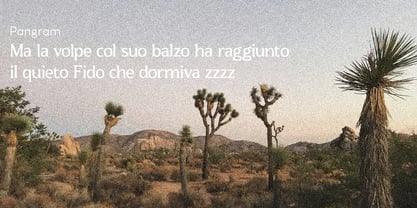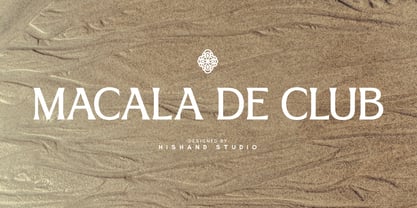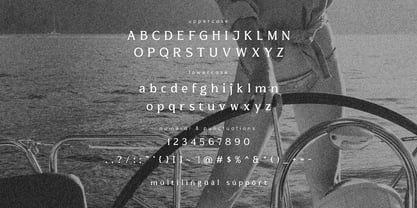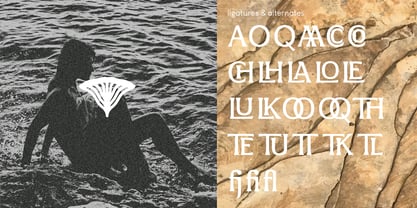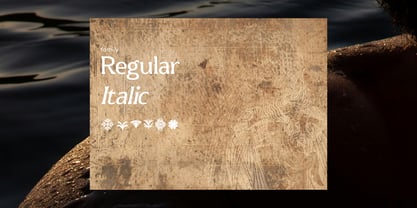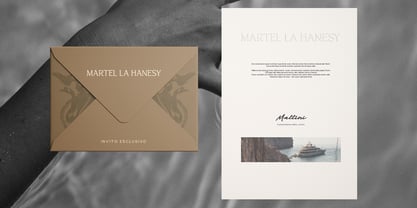
Macala De Club
The Macala De Club Font Family was designed by Putu Dody Permana and published by Hishand Studio. Macala De Club contains 3 styles and family package options.
Macala De Club is a stylish serif font that combines a classic feel with a modern twist. It features elegant, slightly dramatic letterforms that stand out without being too loud. The subtle curves and sharp edges give it personality, making it perfect for logos, editorial layouts, fashion branding, or anything that needs a touch of sophistication. Macala De Club feels refined, artistic, and effortlessly classy great for when you want your words to look as good as they sound. Complete with
• ligatures
• alternates
• regular
• Italic
• icon
• kerning
• multilingual support